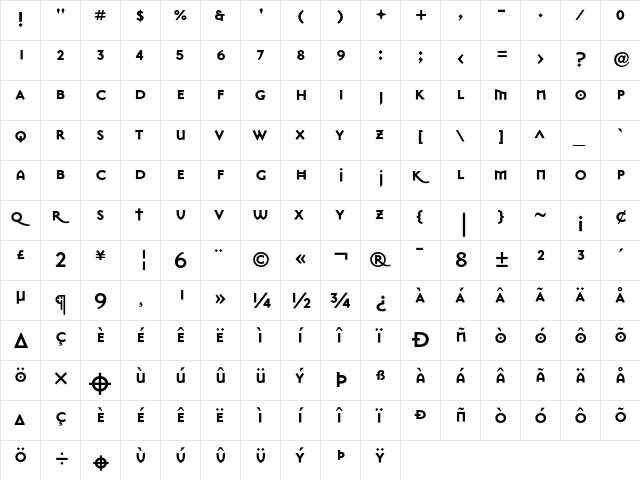
MasonSans SuperBold Font Preview
MasonSans SuperBold
Design Context for MasonSans Typeface
MasonSans is a composed and adaptable typeface that performs quietly and consistently across a wide range of design contexts. Its bold stroke weight gives it real presence on the page.